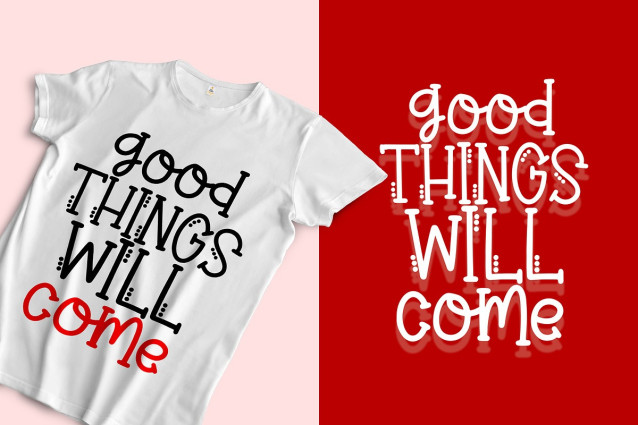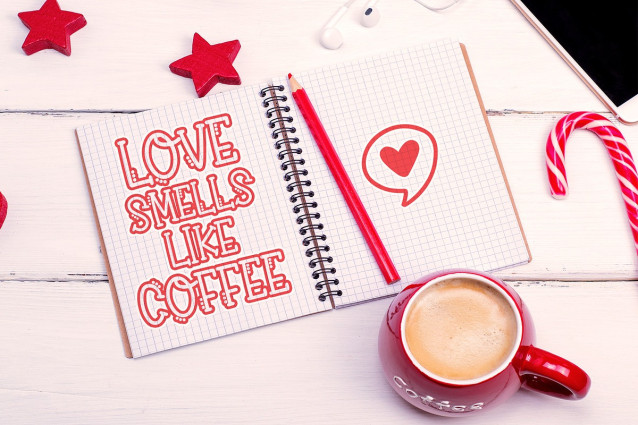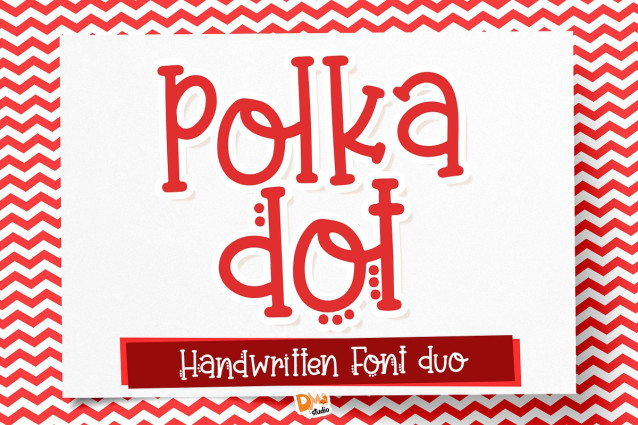
Polka Dot Font
Polka Dot Font, a unique handwritten font duo. Polka Dot comes in two styles, with and without polka dots on each letter. Great for unique diy crafts, svg cutting designs, promotional products, t-shirt designs, mugs, pillows, wall decor and more. Get this font for your beautiful collection!